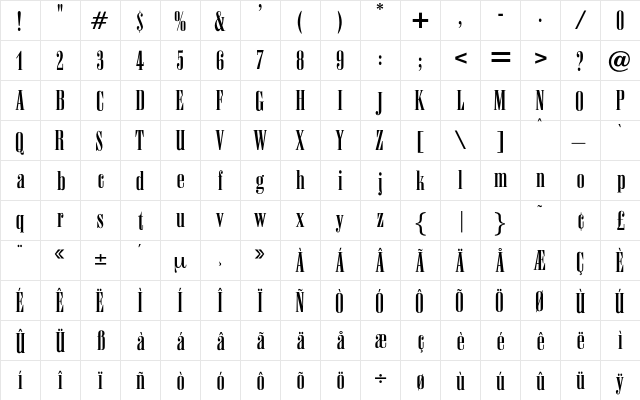
Anatevka Regular
Design Context for Anatevka Typeface
Anatevka offers clean, dependable letterforms without strong stylistic allegiance, making it a practical choice for designers who need flexibility.